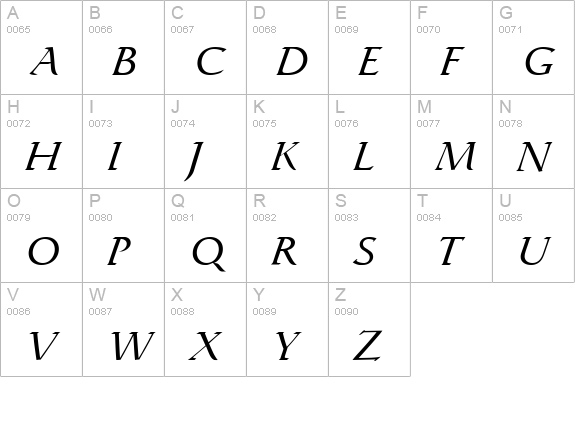
Catull (R) Italic OsF Font Details
Catull (R) Italic OsF is a distinctive, italic variant in the Catull typeface family \xE2\x80\x94 well suited to design and typography projects.
Catull (R) Italic OsF font is a stunning typeface that exudes elegance and sophistication. Its graceful curves and unique design make it perfect for adding a touch of class to any project. The italic style adds a sense of movement and fluidity, making it a versatile choice for both formal and creative designs. What sets Catull (R) Italic OsF font apart is not only its beauty but also its accessibility. This font is free to download at FontsMarket.com, allowing designers and creatives to easily incorporate it into their work without any cost. Whether you're designing a wedding invitation, creating a logo, or working on a branding project, Catull (R) Italic OsF font is a fantastic choice that won't break the bank. With its timeless appeal and effortless charm, Catull (R) Italic OsF font is sure to elevate your designs and leave a lasting impression. Download it for free today and see the magic it brings to your projects!